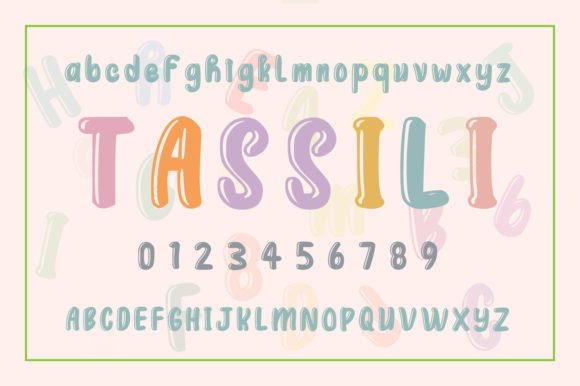
**Introducing Tassili Font: The Ultimate Display Font for Kids' Adventures**
Journey into a whimsical world where imagination takes flight with Tassili Font, a charming and playful creation by Stoart. This captivating display font is not just a collection of letters; it's a gateway to a child's limitless dreams.
**A Symphony of Shapes for Little Eyes**
Tassili Font dances across the screen with its chunky, handwritten letters, each stroke a testament to the boundless energy and creativity of childhood. Its 3D design adds a touch of magic, making every word a vibrant adventure.
**The Perfect Playmate for Young Minds**
Tassili Font is the ultimate companion for children's projects and activities. Its readability is unmatched, ensuring that every message, story, and poem is effortlessly absorbed by young minds.
**Igniting Imagination with Every Letter**
Whether it's a school project, a handmade card, or a heartfelt letter, Tassili Font transforms ordinary words into extraordinary expressions. Its playful spirit encourages kids to embrace their creativity and let their imaginations soar.
**A Joyful Addition to Your Design Arsenal**
Add Tassili Font to your design toolkit and watch as your creations burst with personality and exuberance. Its versatility knows no bounds, from classroom presentations to cheerful posters and everything in between.
**A Font that Touches Hearts**
Tassili Font is more than just a collection of characters; it's a reminder of the innocence, wonder, and boundless potential of childhood. Let its playful charm inspire your designs and create memories that will last a lifetime.